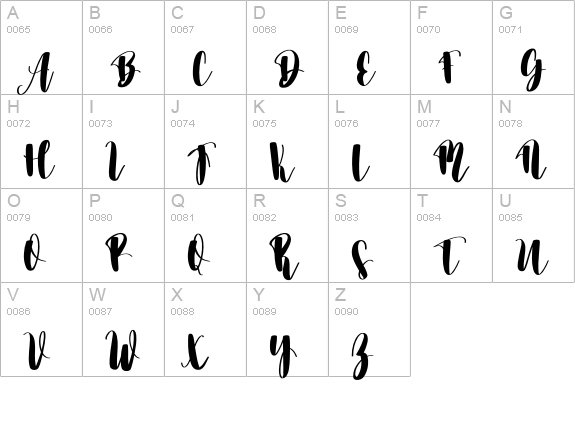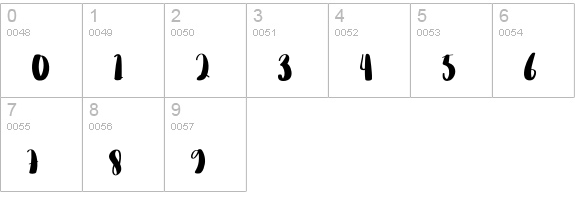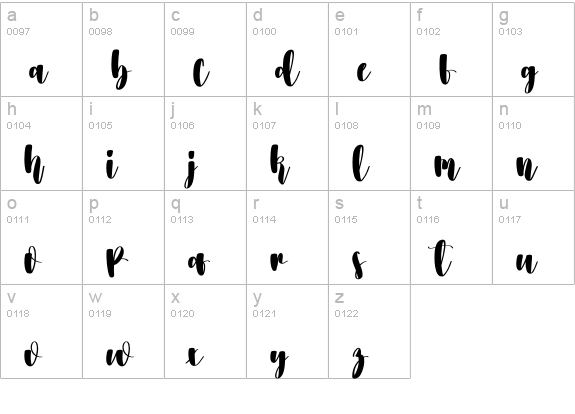
Handmade1 Font Details
Handmade1 is a free for personal use font in the Script > Handwritten category, designed by scratchones. It has been downloaded 1 times and is available for Windows, Mac and Linux.
Handmade1 font is a charming and whimsical typeface that exudes a handmade feel with its imperfect lines and unique character shapes. Perfect for adding a personal touch to your projects, this font is versatile and eye-catching.
With its playful and organic aesthetic, Handmade1 font is sure to stand out and make a statement. Give your projects a personal and handcrafted touch with this delightful font that is as unique as you are. Download Handmade1 font today and let your creativity shine!